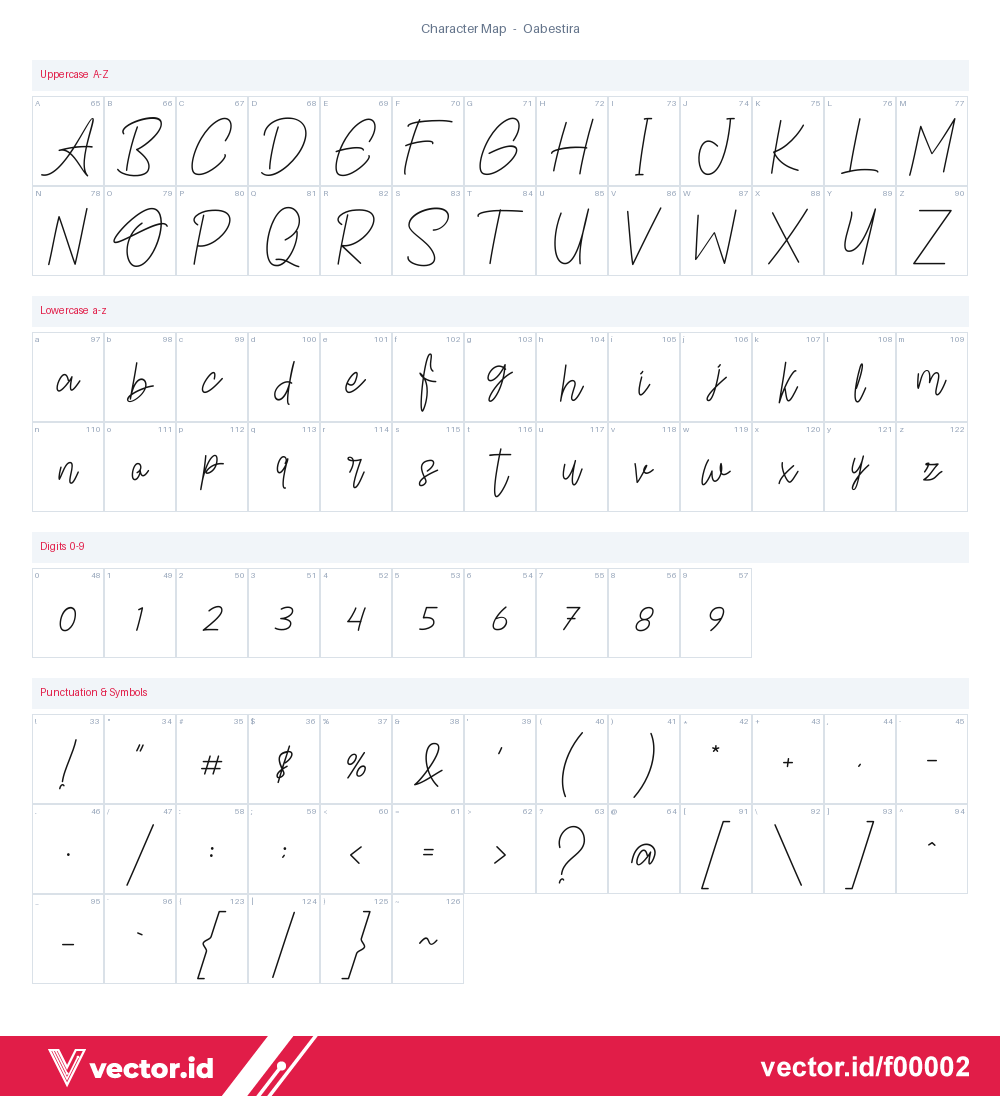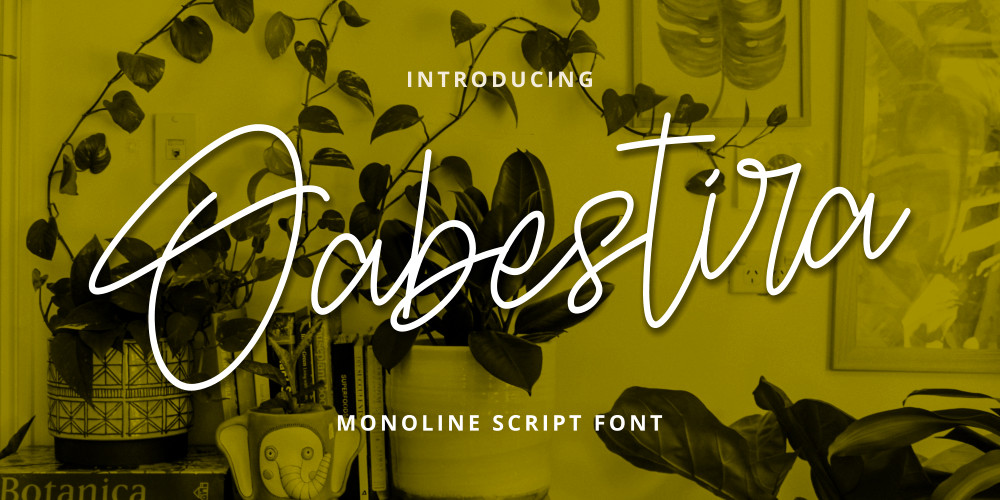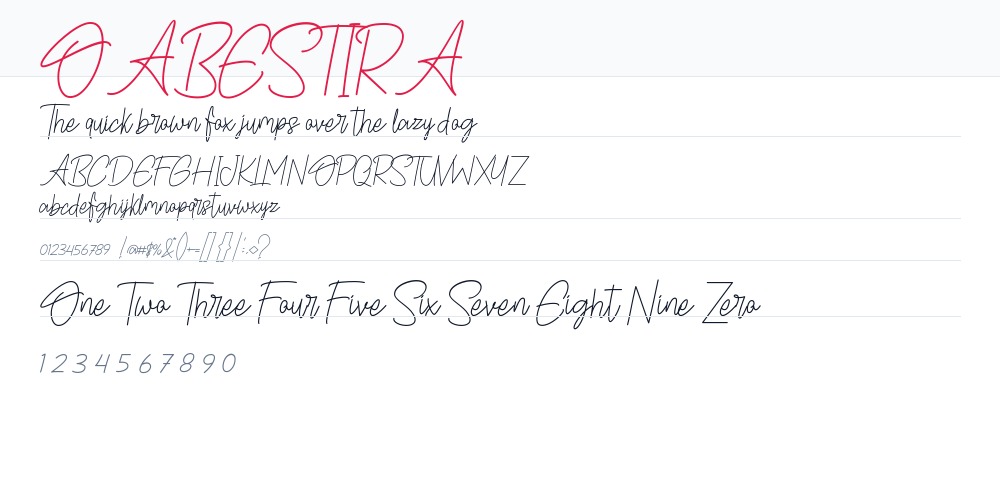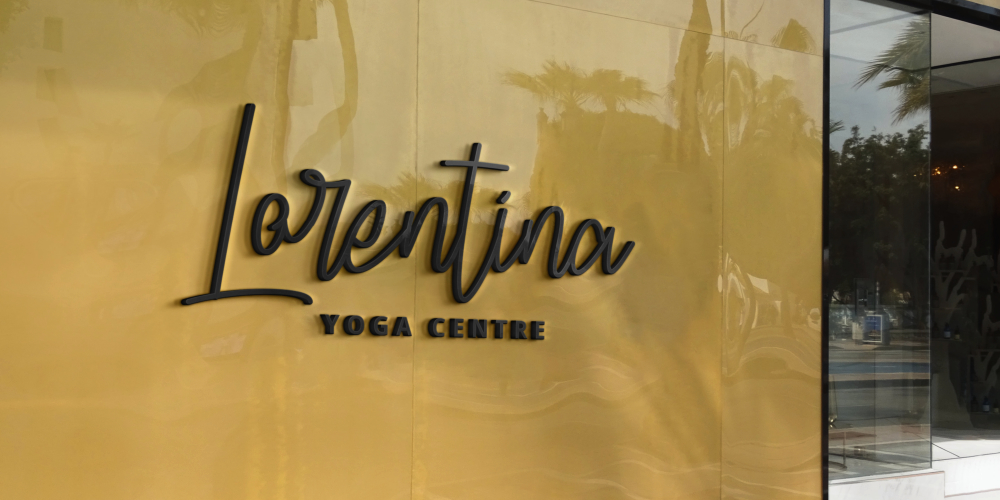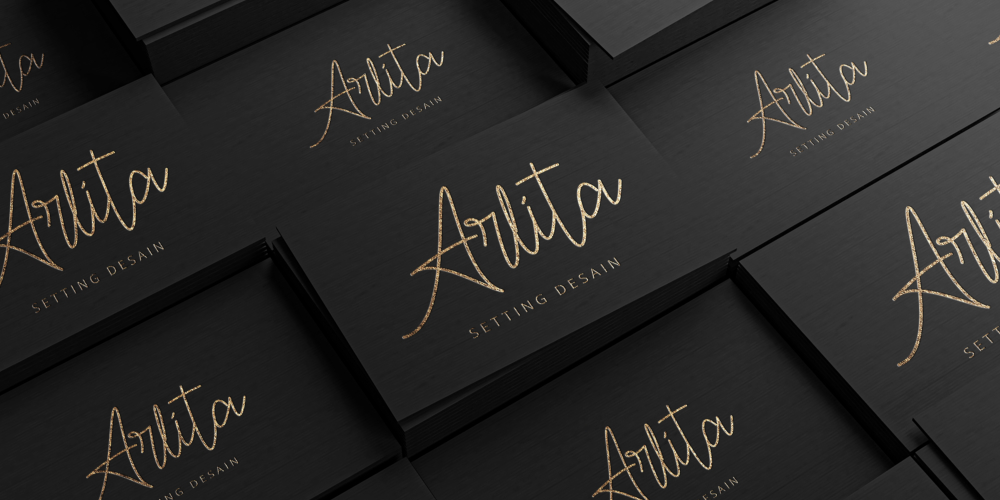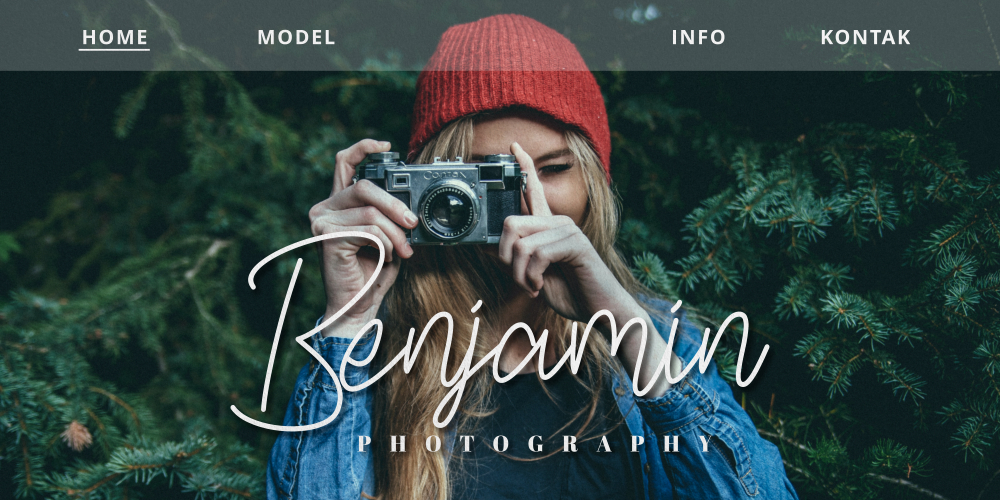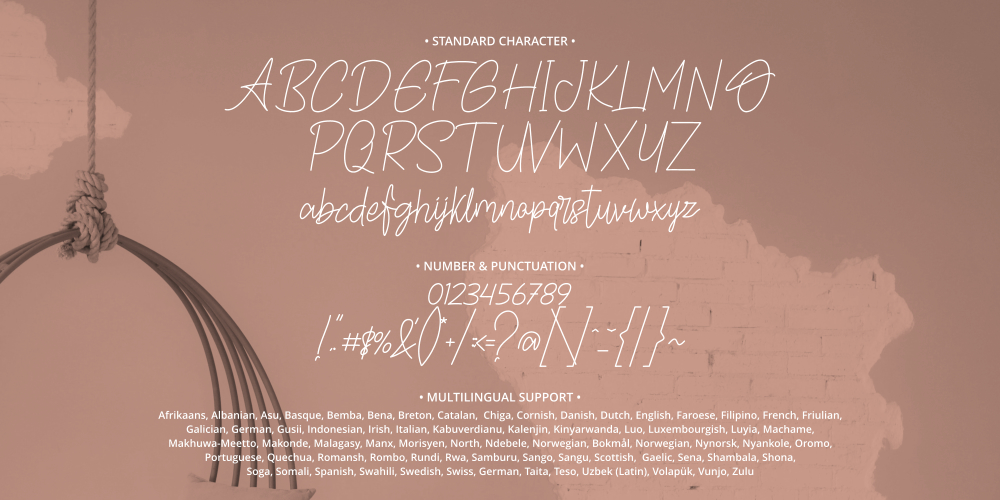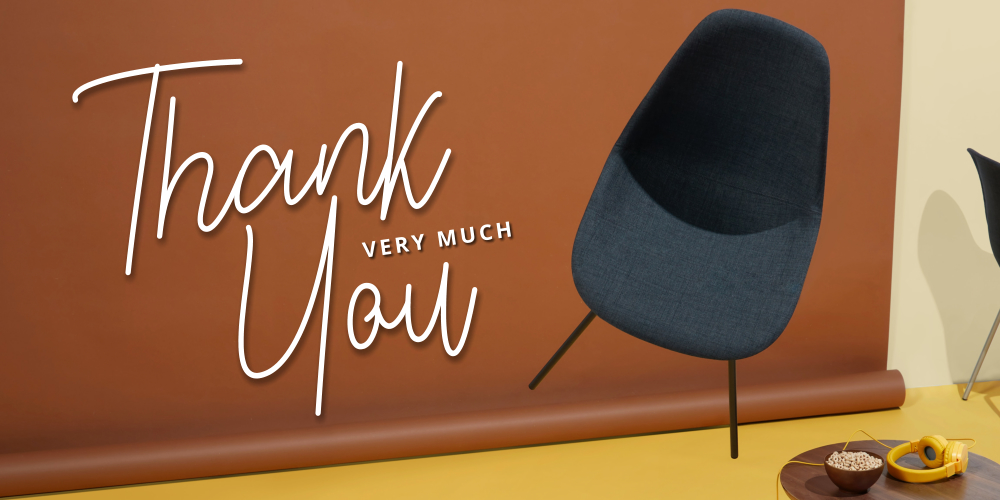
Oabestira Font – font premium cover
Oabestira is an asymmetrical and timeless handwritten font. It is the best choice for creating eye-catching logos, branding and quotes. Every letter has a unique and beautiful touch, which will make your design come alive!